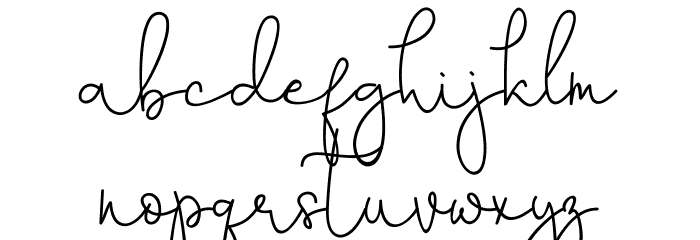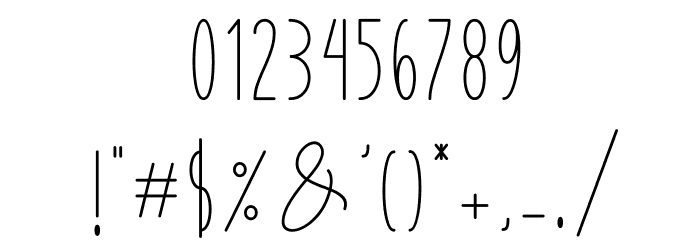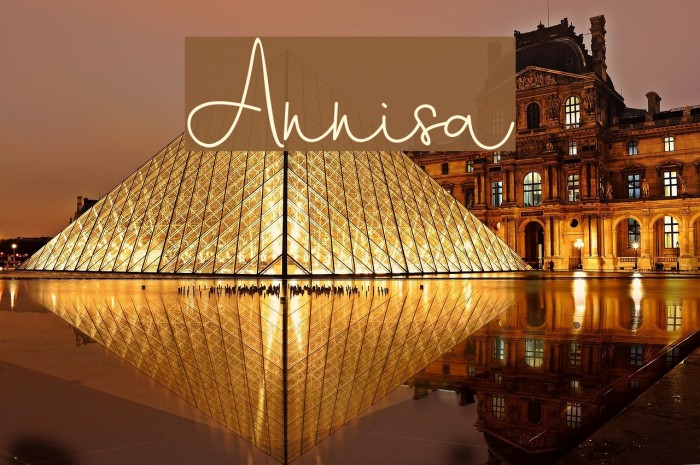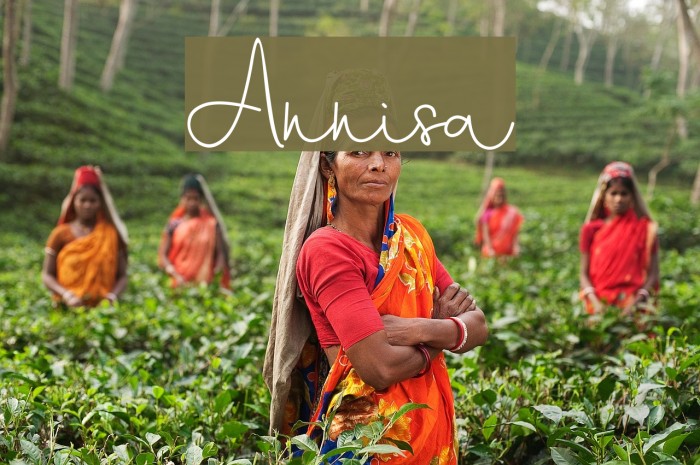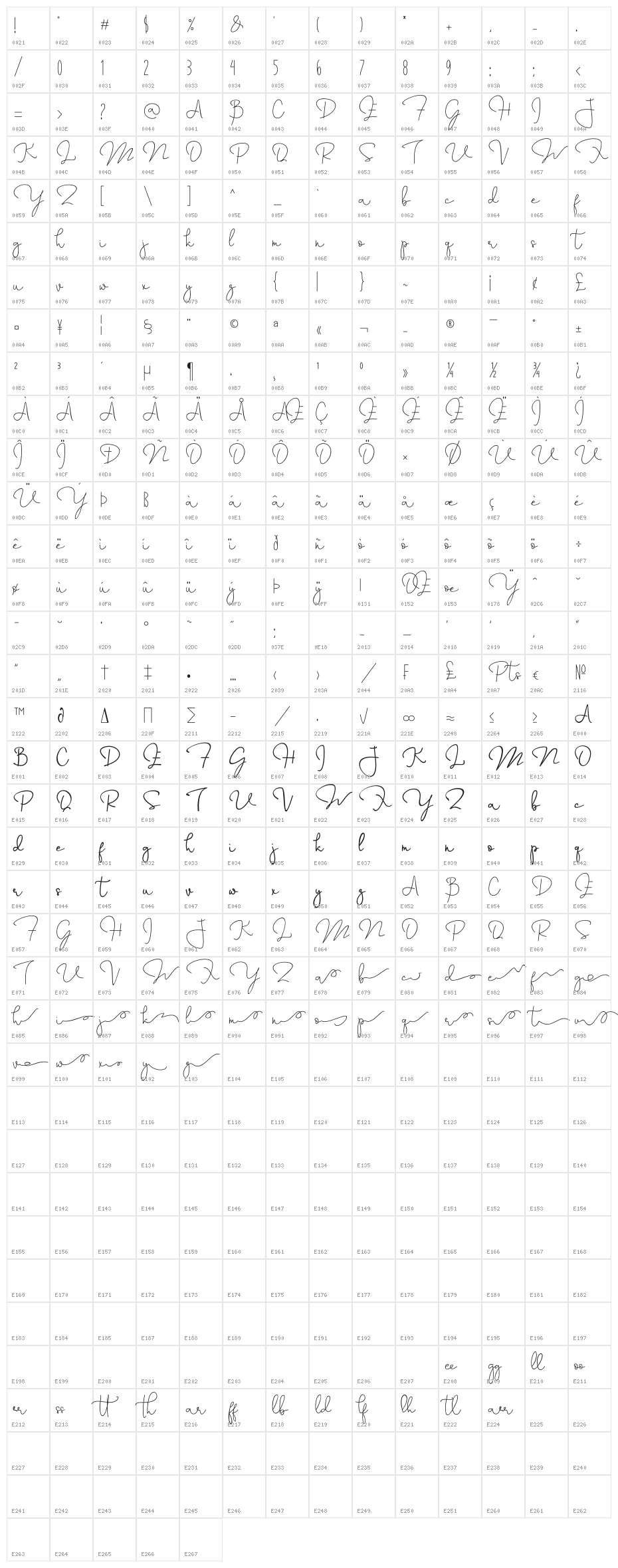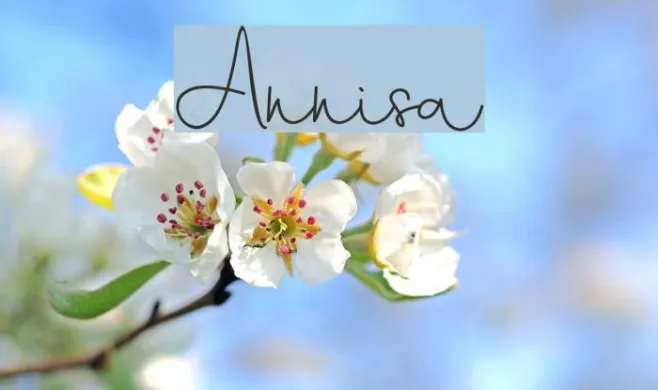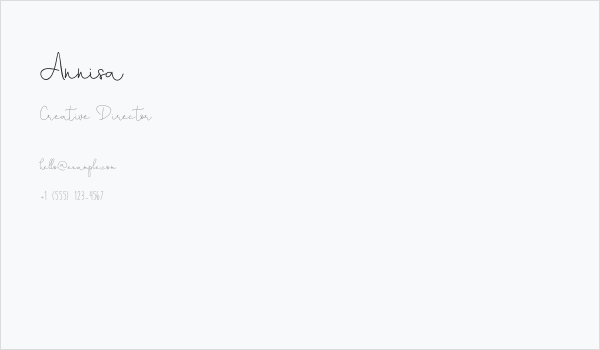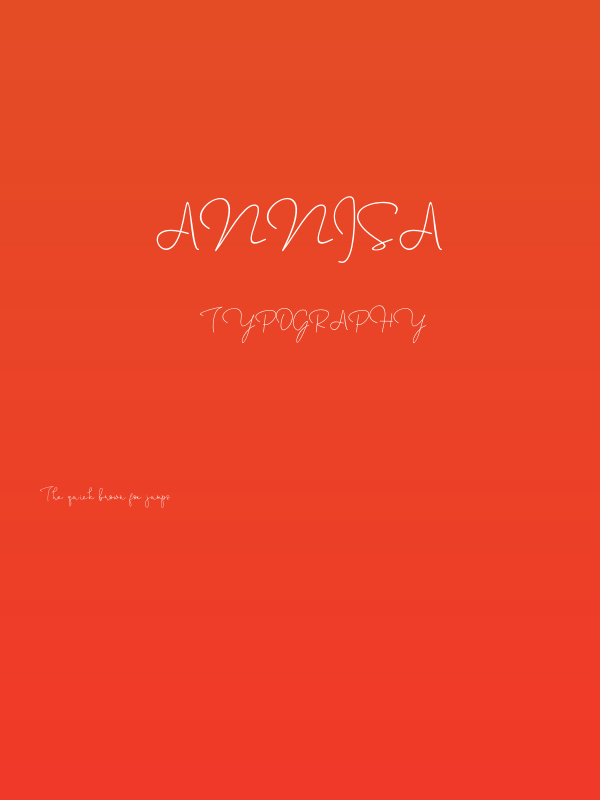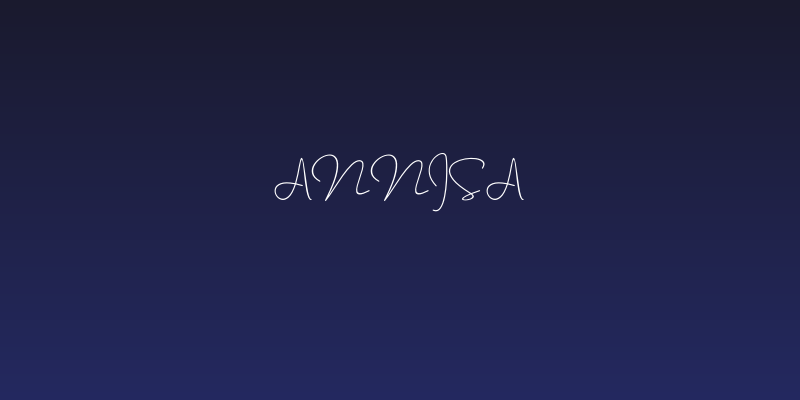
Annisa Font
This font features a delicate and flowing script style, characterized by its elegant and fluid letterforms. The uppercase letters are tall and slender, with graceful curves and loops that give a sense of movement and sophistication. The lowercase letters maintain a consistent flow, with some letters extending below the baseline, adding to the font's dynamic appearance. The numerals are clear and legible, complementing the overall style with their straightforward design. Special characters are integrated seamlessly, maintaining the font's cohesive look. This font is ideal for projects that require a touch of elegance and personality.
A graceful and flowing script font with elegant curves and loops.
- Proposed Projects: Ideal for wedding invitations, greeting cards, branding, and elegant logos.
- Category: Script
- Overall Style: Elegant
- Use Case: Logos, Invitations, Greeting Cards